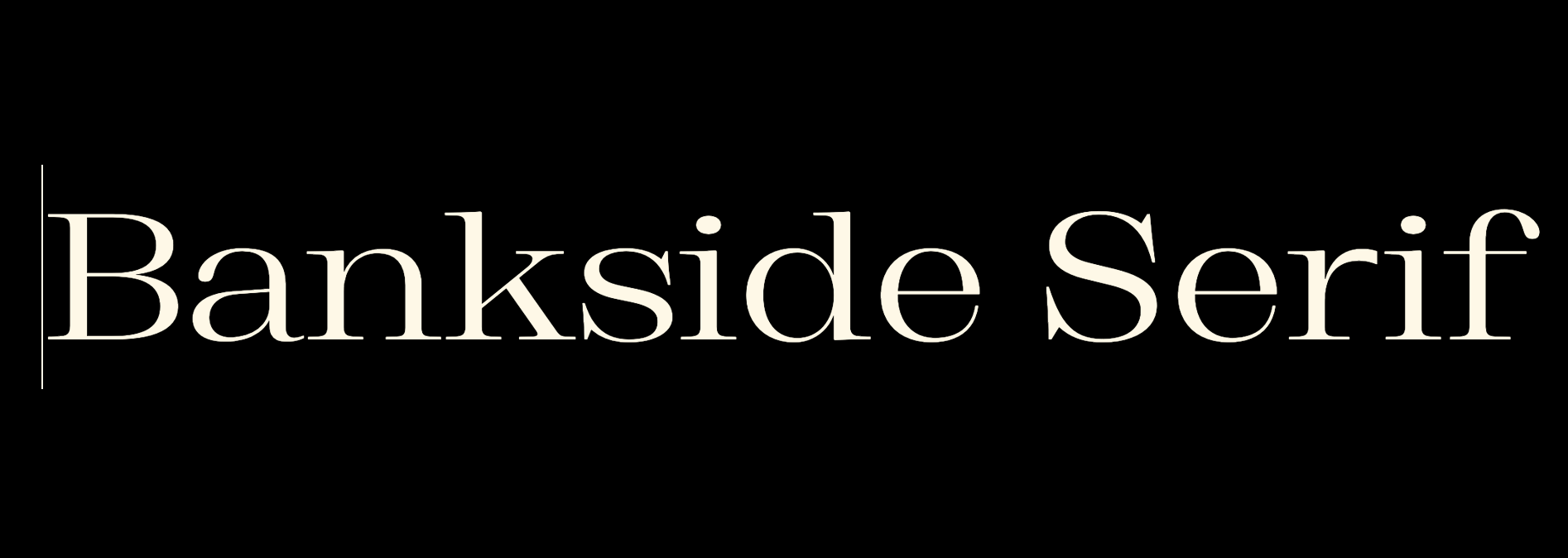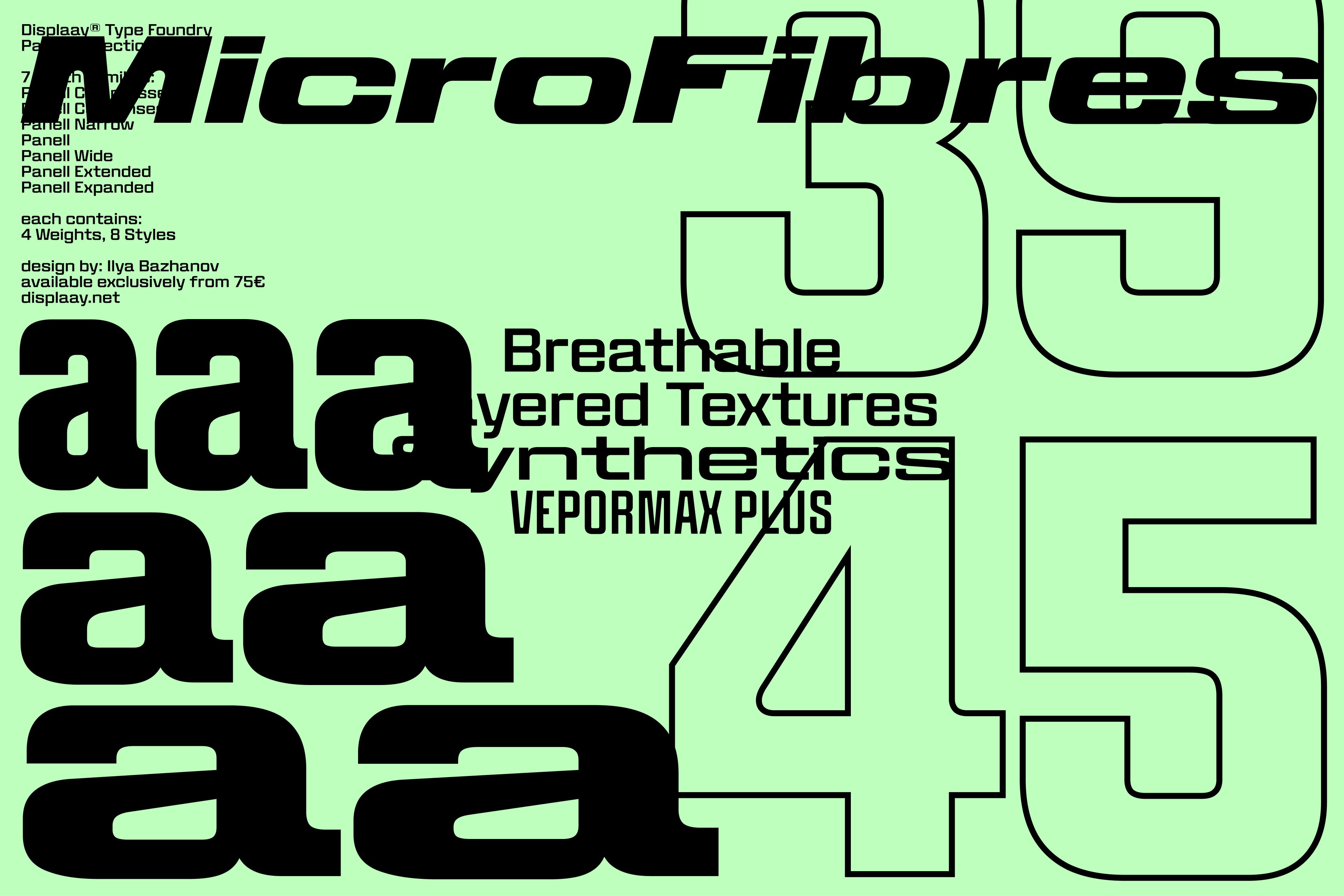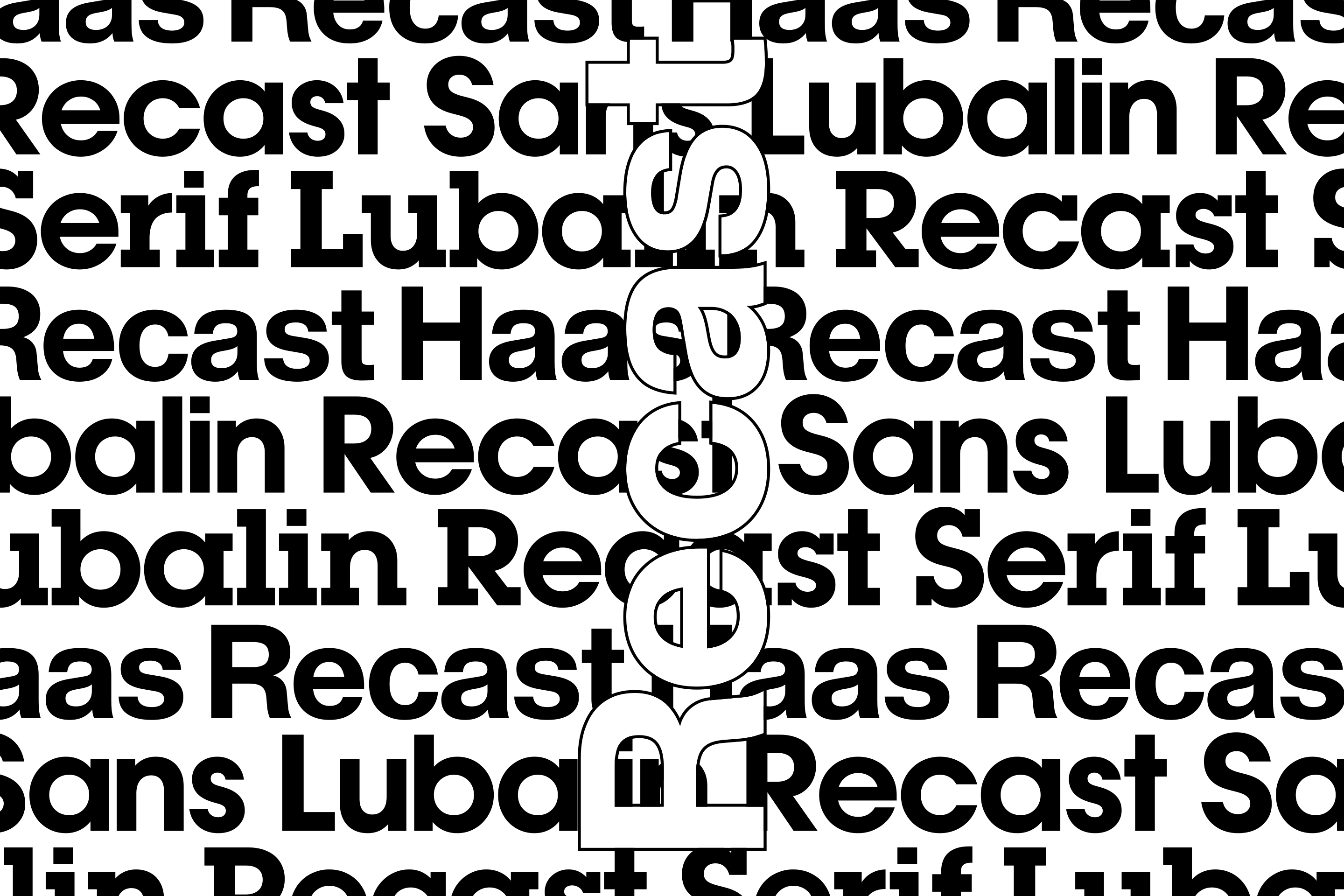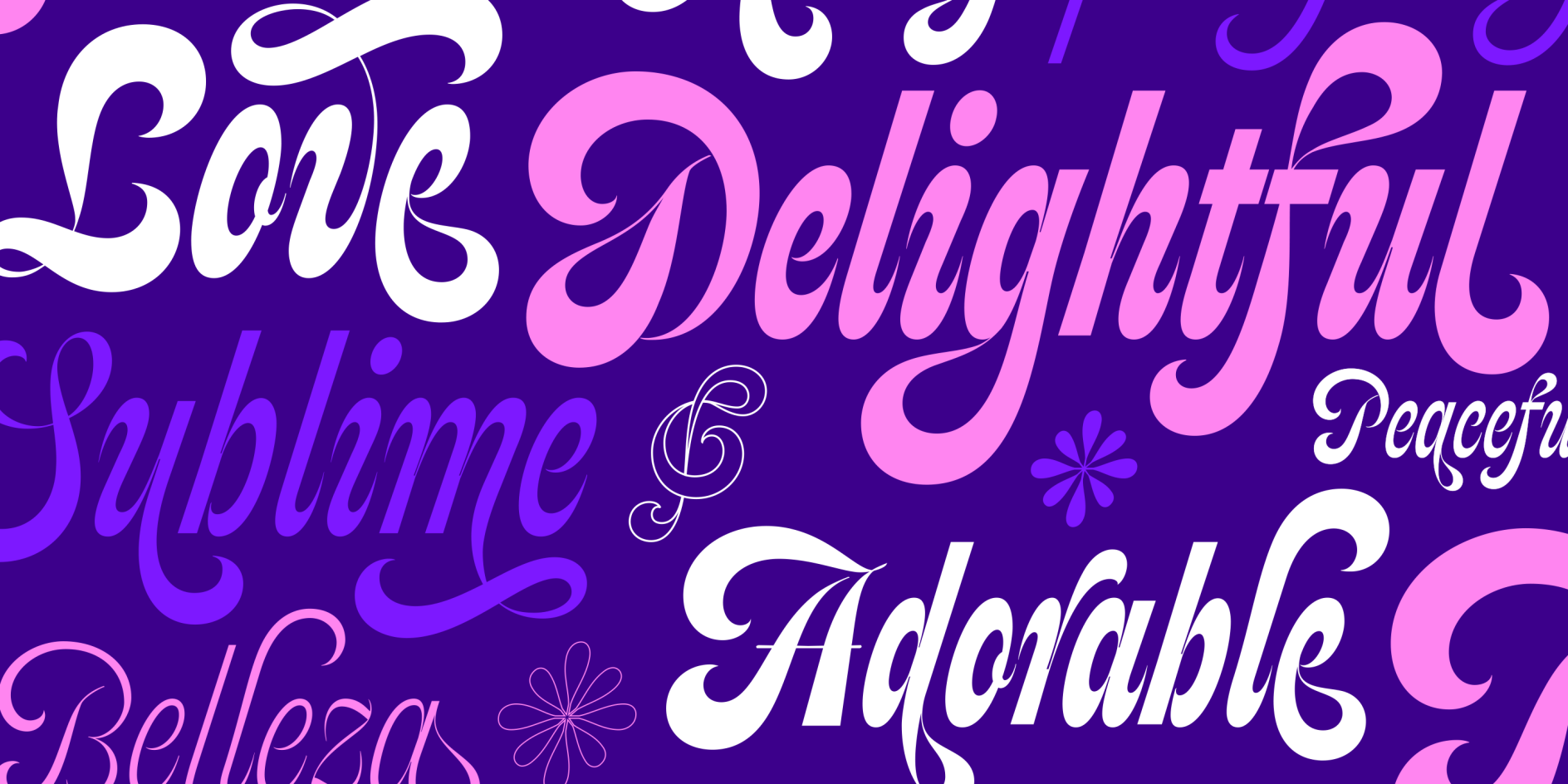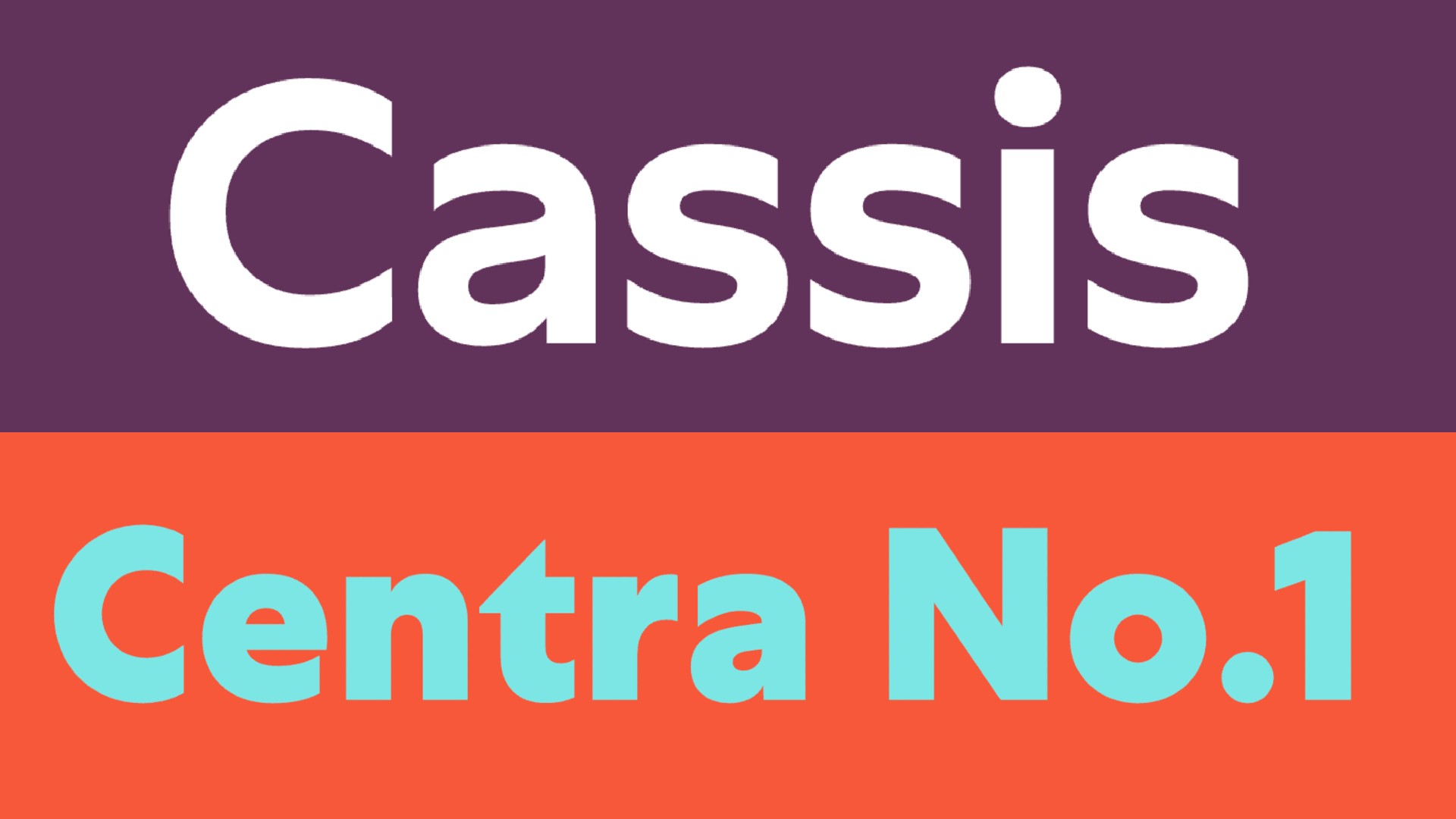
Six common font pairing mistakes and how to avoid them
You're putting the finishing touches to a brand identity. The logo feels strong, the colour palette is working and you're happy with the layout. But something's off and you can't quite put your finger on it.
You tweak the spacing, adjust the weight, move things around. The problem persists. Then it hits you: the fonts aren't working together. They're both great typefaces, but the relationship between them is creating a low-level visual friction that's quietly undermining everything else.
That's an issue because font pairing is where many design projects succeed or fail. The choice of which typefaces to combine is one of the most consequential decisions you'll make. Yet it's an area where even experienced designers can fall into familiar traps.
To help you navigate this tricky turf, we asked six experienced designers and typographers to share the mistakes they see most often and, crucially, what to do instead. You can also follow the advice in our font pairing guide.
01. Pairing fonts that are too similar
Our first mistake is choosing two fonts that are almost, but not quite, the same. Two geometric sans-serifs, for instance, that share a general feel but differ in small details: a slightly different x-height here, a slightly different terminal there.
"Pairing two geometric sans-serifs that are very similar doesn't look like a choice, it looks like a mistake," says Charlie Beeson, design director at FutureBrand. "Viewers get hung up on those tiny yet jarring differences in x-heights or terminals, creating a visual itch."
Alice Munday, design director at Curious, agrees. "Using two fonts that are too similar in style can create a disjointed feeling and the decision to be different feels like it lacks intention," she says. "Why use both if they do the same job?"
Instead, make the contrast deliberate. If you're pairing type, the relationship should be immediately readable. As Charlie puts it: "If the hierarchy isn't obvious, it reads as an accident."
02. Not defining clear roles for each font
Even a well-chosen pairing can fail if the roles of each typeface within the system are left vague. When designers don't know when to use which font, inconsistency creeps in across touchpoints and the system quietly unravels.
Natasha Lucas, a designer specialising in visual identity, puts it clearly. "Problems arise when these roles are left undefined," she explains. "Designers may begin using typefaces interchangeably, or introducing unnecessary variation across touchpoints. This creates inconsistency, weakens the coherence of the brand, and can dilute recognition of the brand voice over time."
Mat Desjardins, founder and creative director at Pangram Pangram, echoes this, explaining that function must always trump aesthetics. "Don't pair fonts just because they share surface traits like sharp terminals or quirky details," he stresses. "Focus on how they behave: proportions, spacing, texture, and purpose within the layout."
Alice adds: "When font pairings contrast each other well, it sharpens the overall design. Each font elevates the other and has a clear role to fill. You aren't just looking for something totally different, but something different enough to make the other even better."
03. Pairing fonts that are too loud
Another mistake to avoid is pairing two loud, expressive display fonts that both demand attention simultaneously. As Charlie puts it: "This is like hiring two lead singers for the same gig; they just end up shouting over each other. When everything is a hero, nothing is, and the system lacks hierarchy and harmony."
Mat concurs. "You like one expressive font, then another, and think: why not use both? But unless there's a very specific concept behind it, combining two loud voices usually creates tension, not hierarchy. A display face can bring character and presence, while a body font should focus on clarity and rhythm. When both try to stand out, they end up competing instead of working together."
In the ideal scenario, one font leads, the other supports. Or as Mat puts it: "Let one speak, and make sure the other knows when to stay quiet."
04. Pairing two serifs unthinkingly
Pairing two serif typefaces isn't automatically a mistake, but it's territory that demands real expertise and commitment. Riccardo De Franceschi, creative director at Dalton Maag, offers a vivid analogy. "It's a bit like wearing a jacket and a pair of trousers of slightly different colours," he says. "Pulling it off requires complete commitment, and detailed knowledge of the nuances."
And here's a particular danger to look out for. "If the two serifs look too close in origin, but feel too different in expression, it can be especially confusing for the reader," Riccardo cautions.
His recommendation is to sidestep the risk altogether by using a super-family that includes both serif and sans-serif variants designed to work together. "Keeping it simple and opting for a super-family that includes both sans and serif families that were designed to work together will deliver a more polished user experience," he says.
As Natasha puts it: "Strong typography systems are not built around quantity, but purpose." In short, if you can't explain why each typeface is there and what job it's doing, it probably shouldn't be there at all.